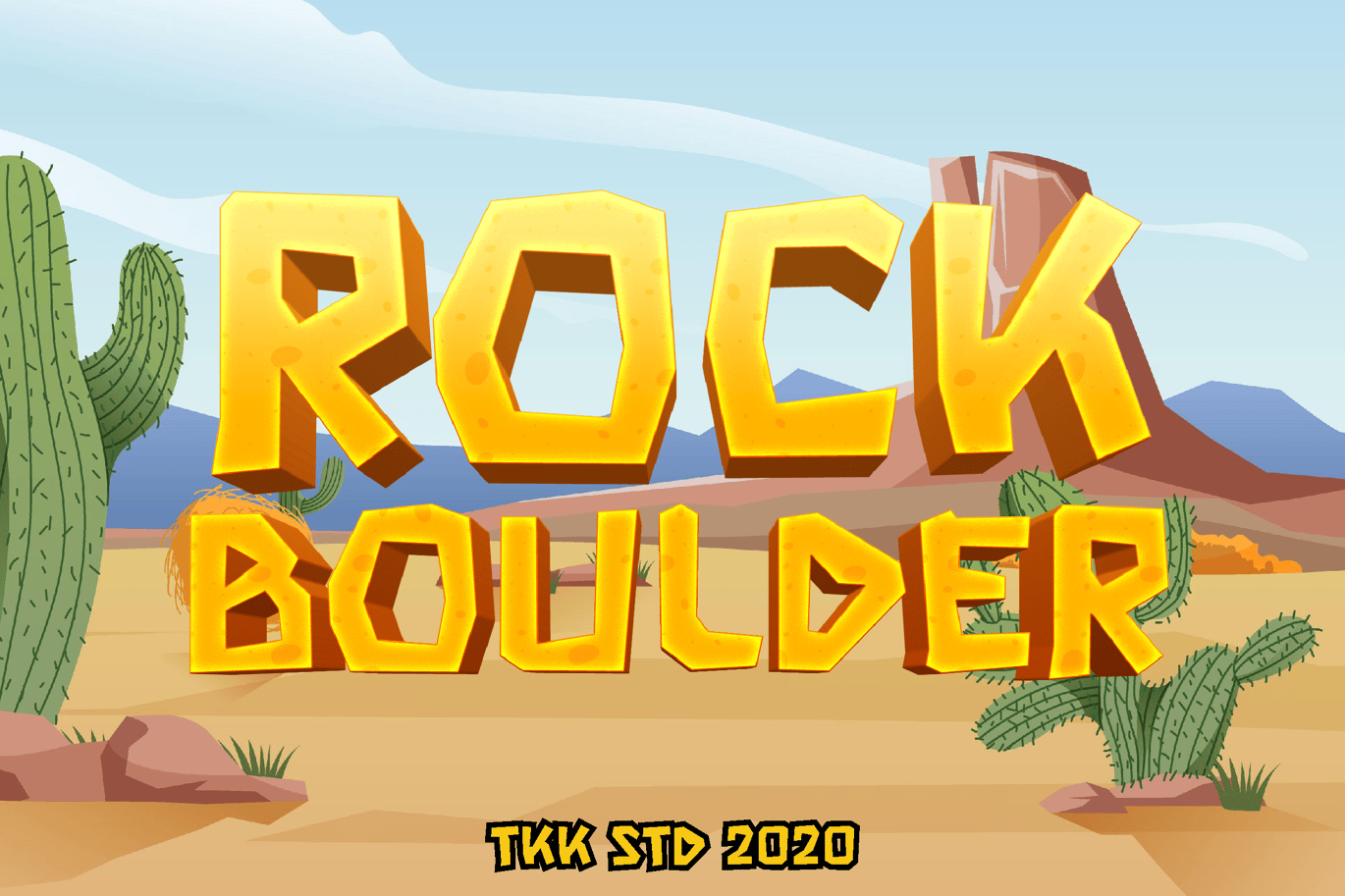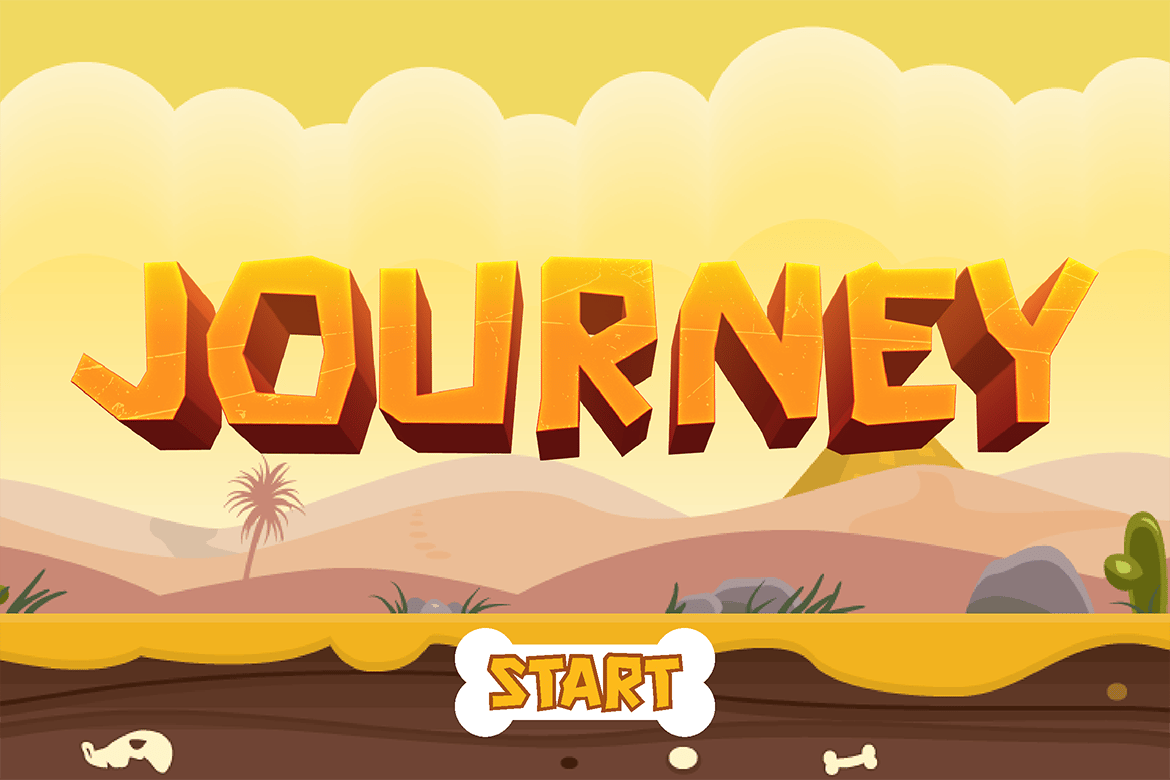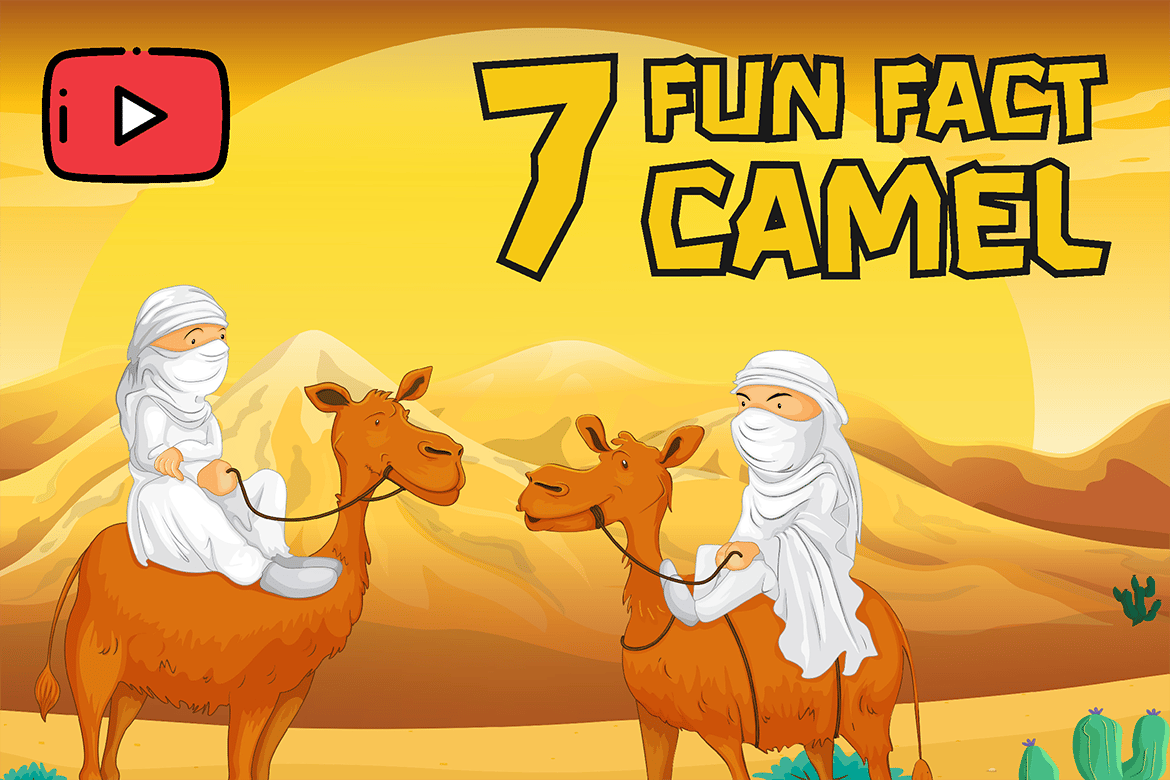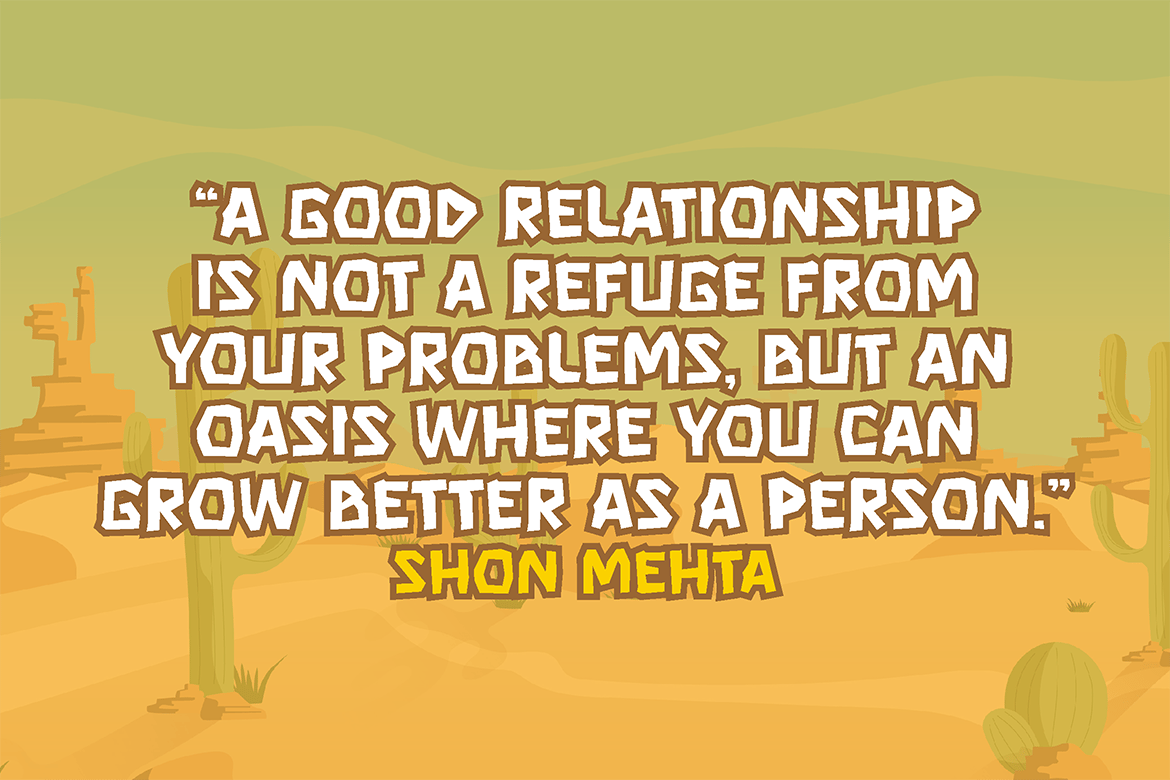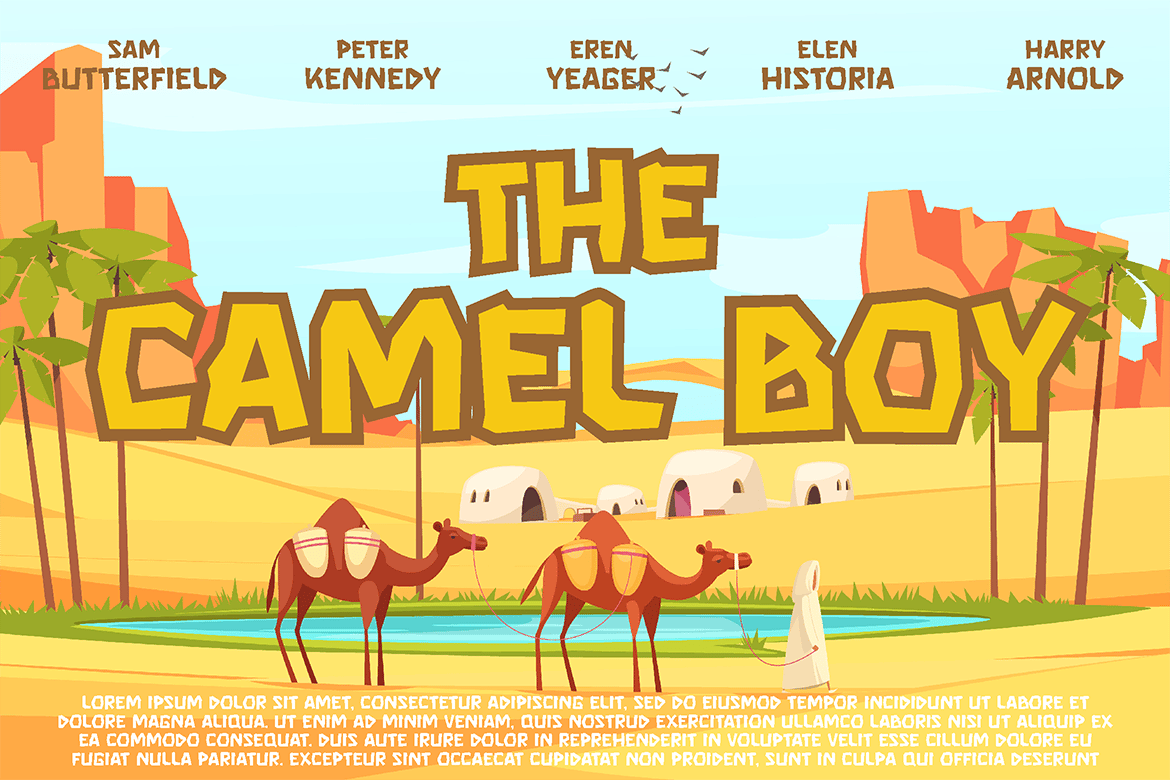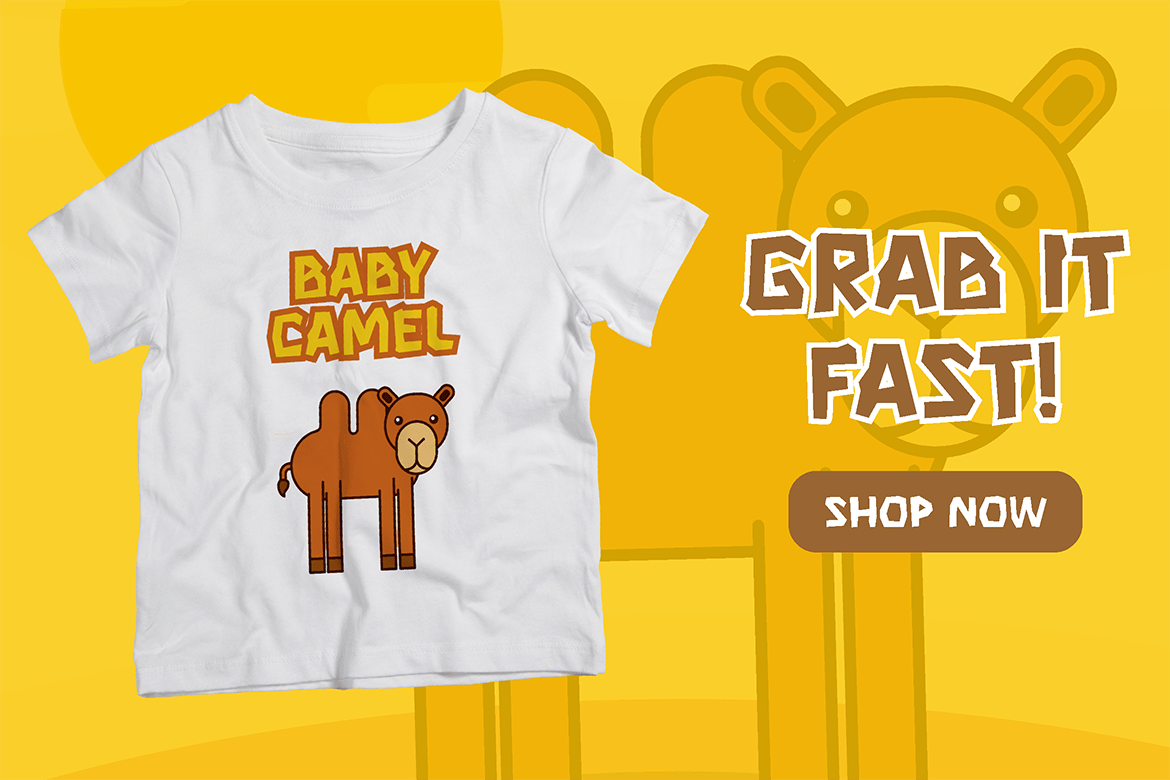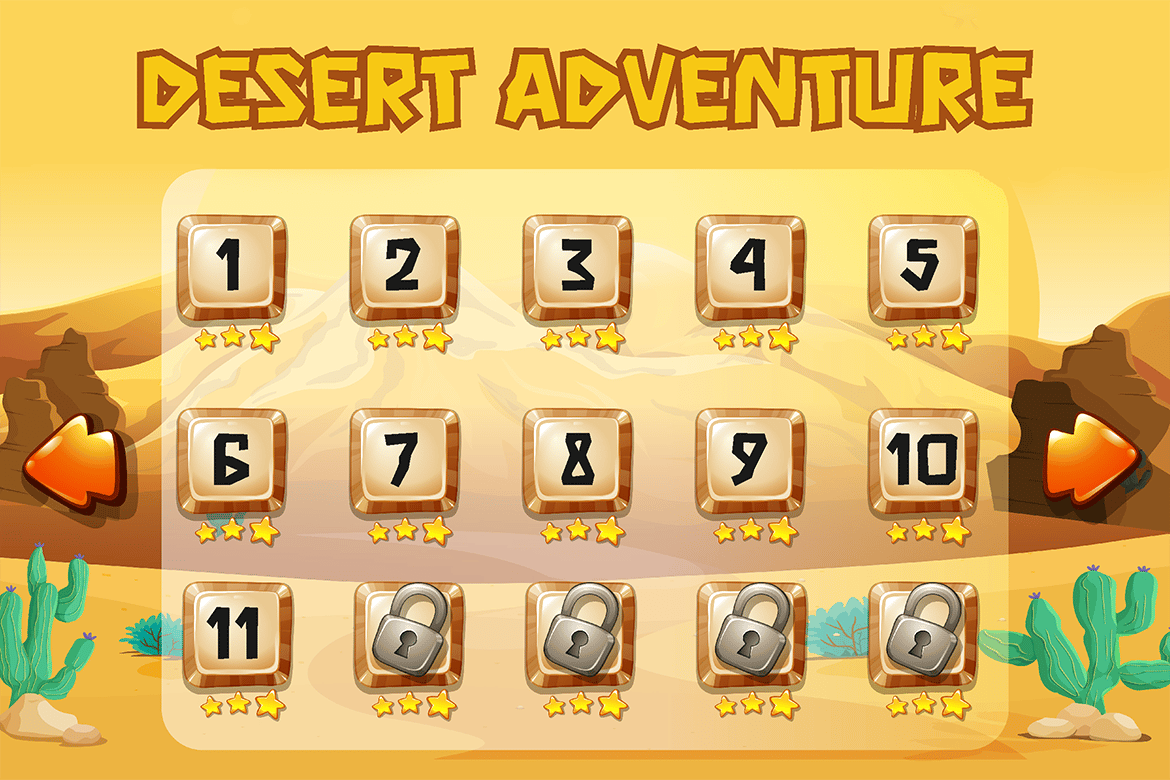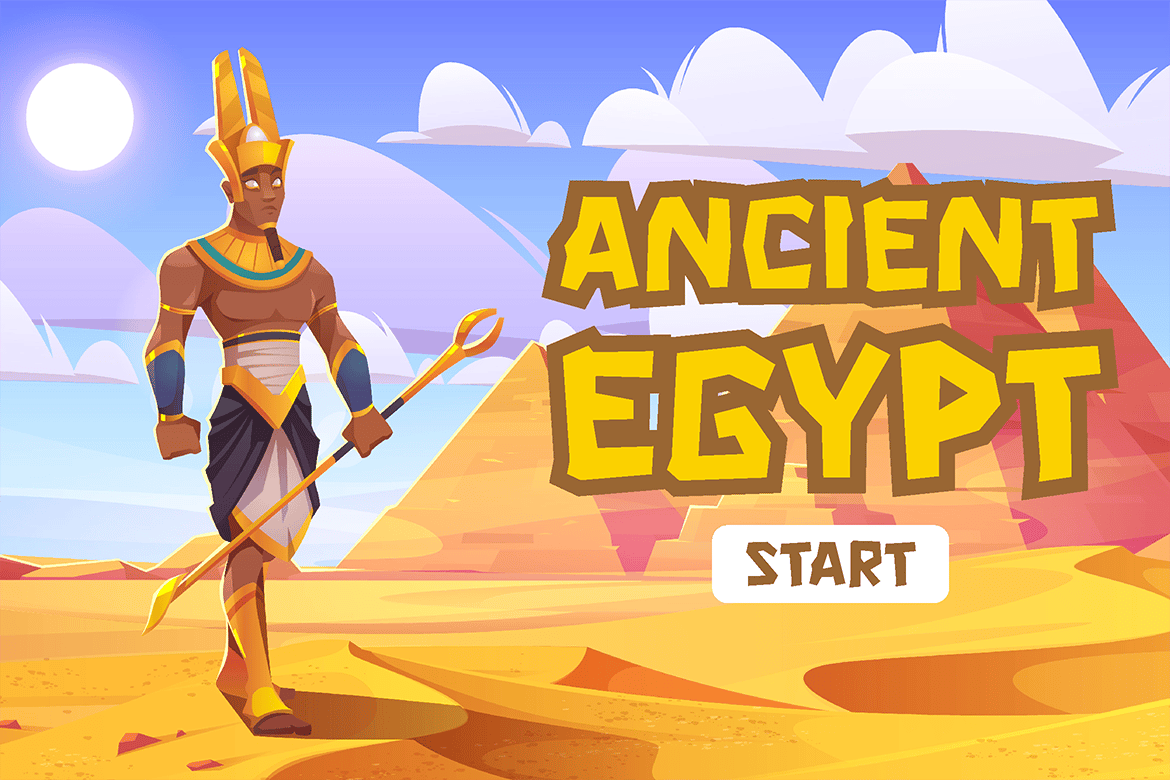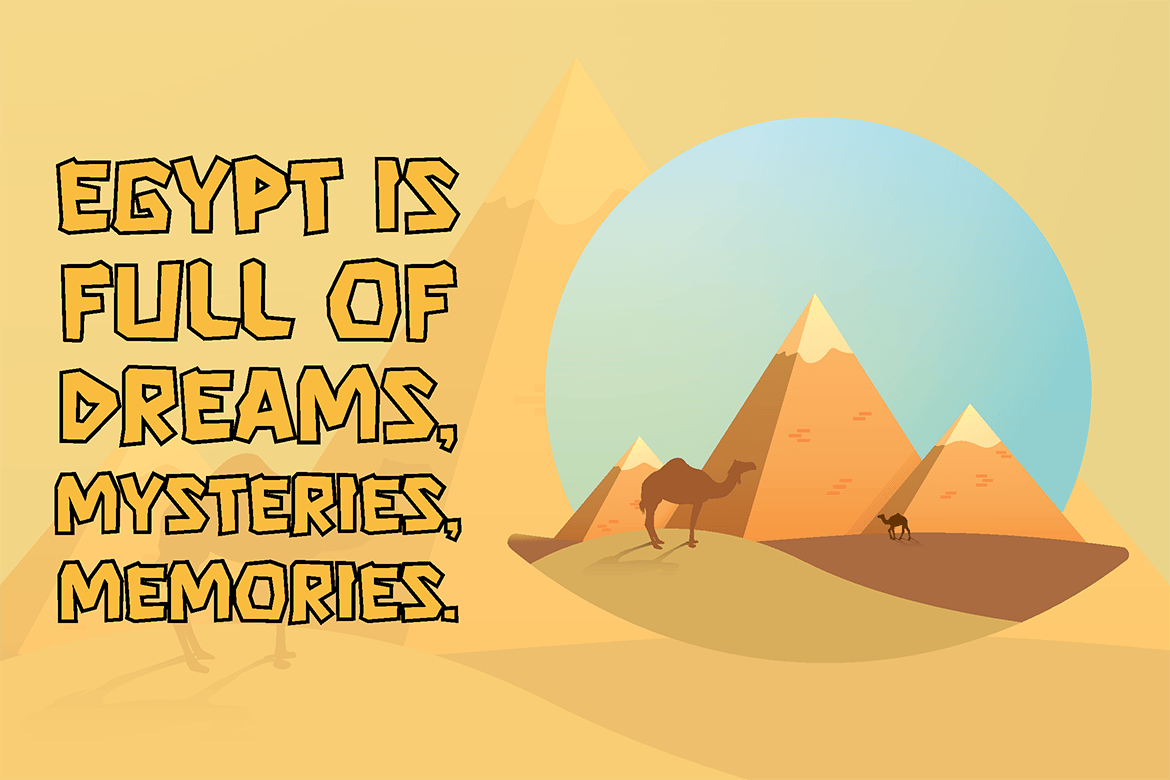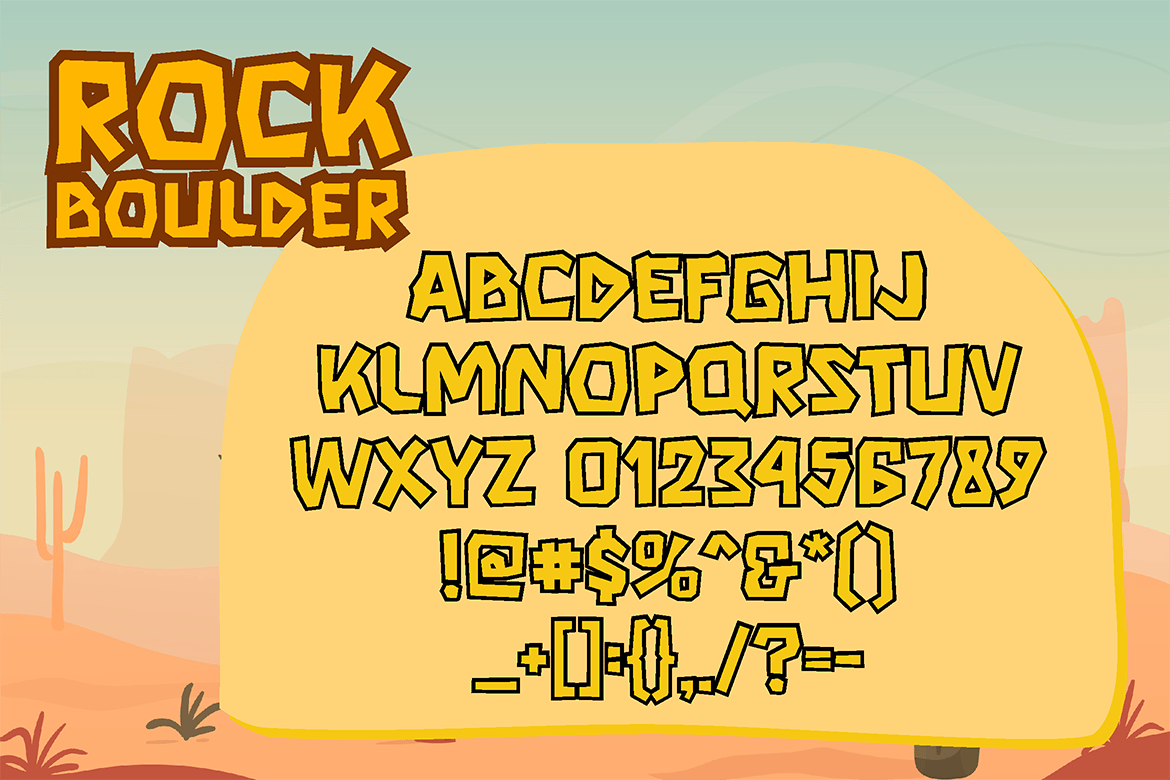
Rock Boulder – Gaming Font
Rock Boulder bring the jagged rock and rough and tough desert look from the ancient world and the cowboy era.
Suits perfectly as a Ancient Desert and Cowboy theme gaming, billboards, posters, logos; headlines or headings in magazines or websites, poster, youtube channel thumbnail and cover.